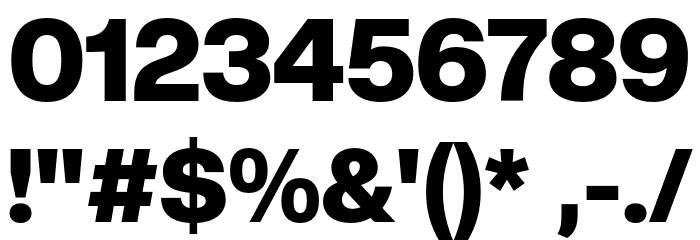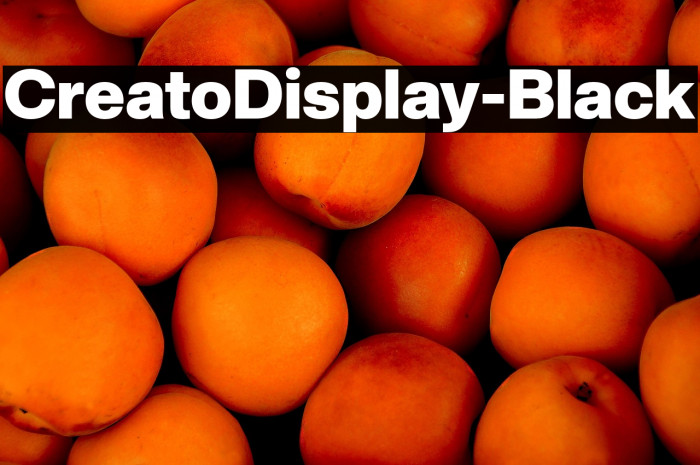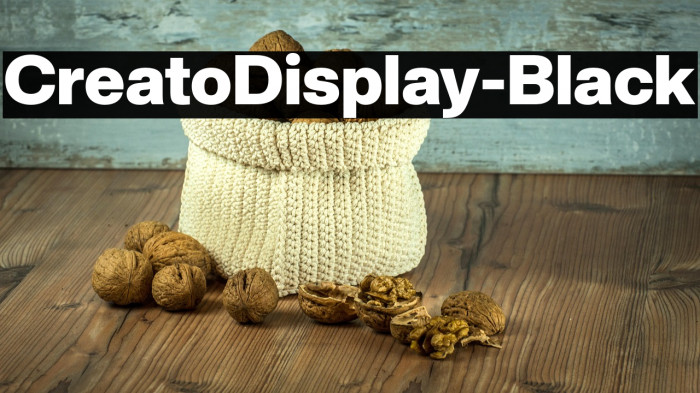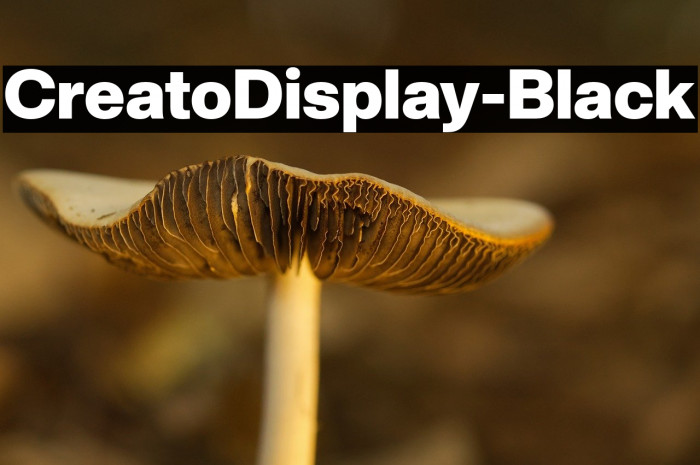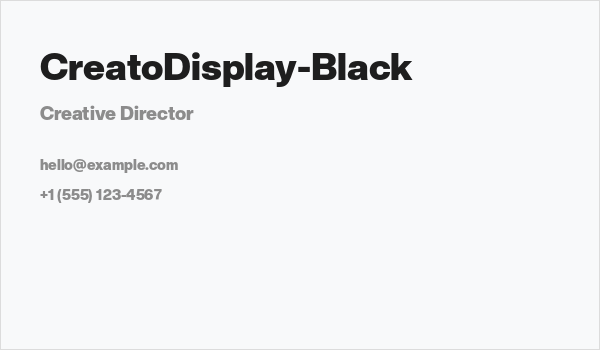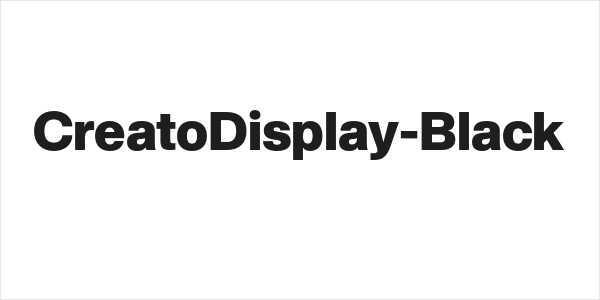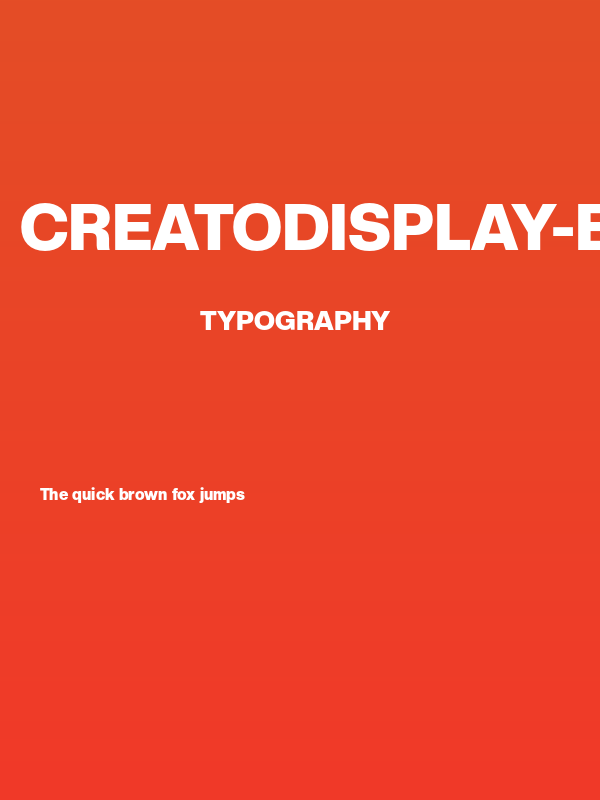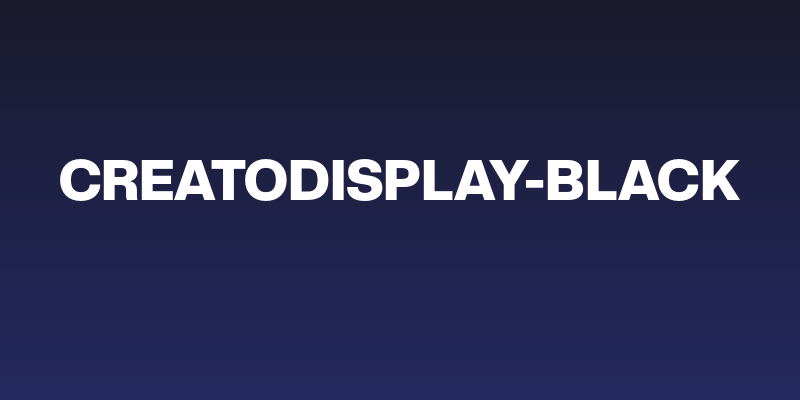
CreatoDisplay-Black Font
CreatoDisplay-Black Description
This font features a bold and impactful design, characterized by thick strokes and a strong presence. The uppercase and lowercase letters maintain a consistent weight, providing a uniform appearance across all characters. The numerals are equally bold, ensuring readability and emphasis. Special characters are designed with the same thickness, making them stand out effectively. The overall style is modern and assertive, suitable for making statements in design projects.
| Proposed Projects | Ideal for headlines, posters, branding, and advertising where a strong visual impact is needed. |